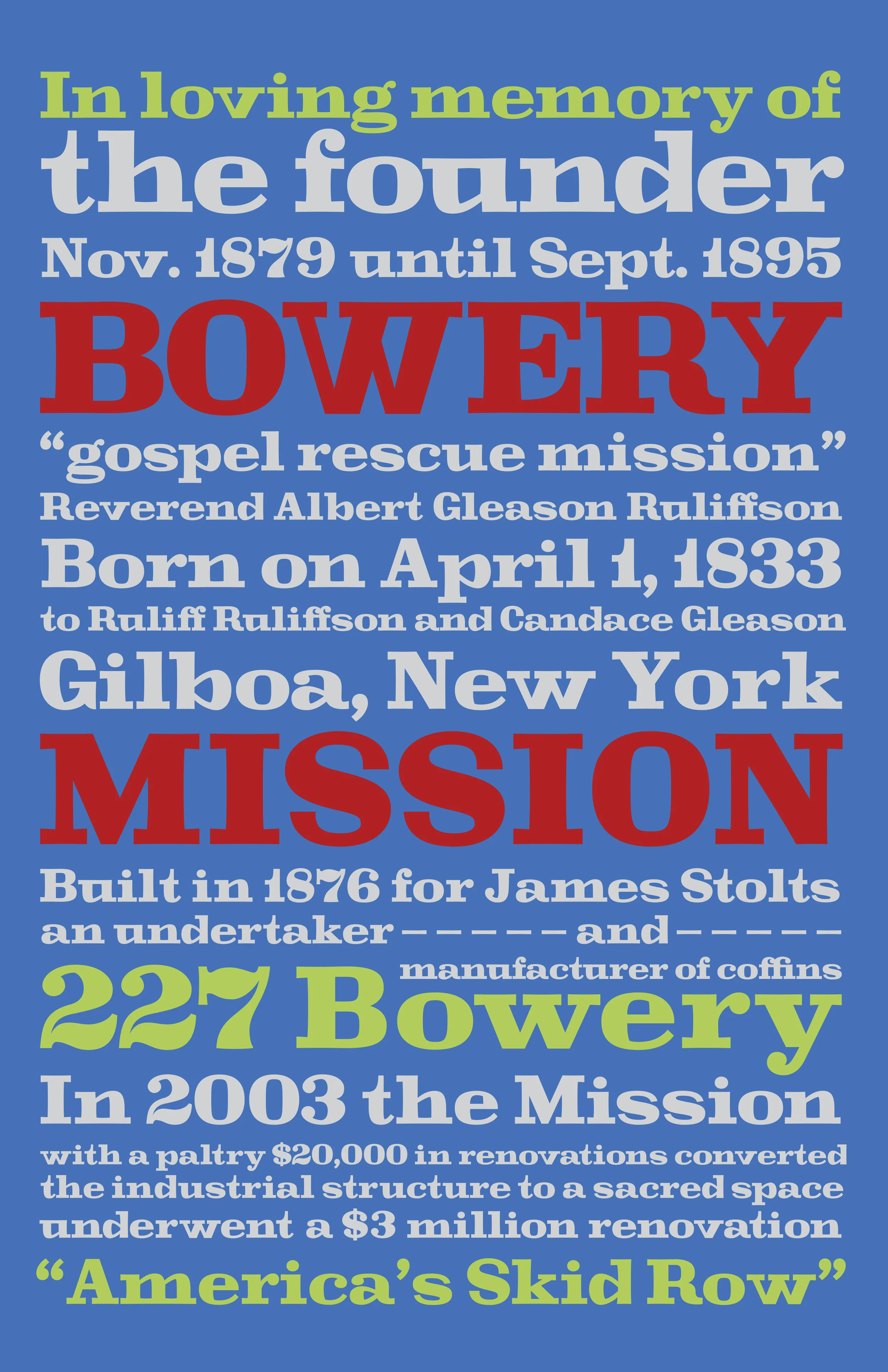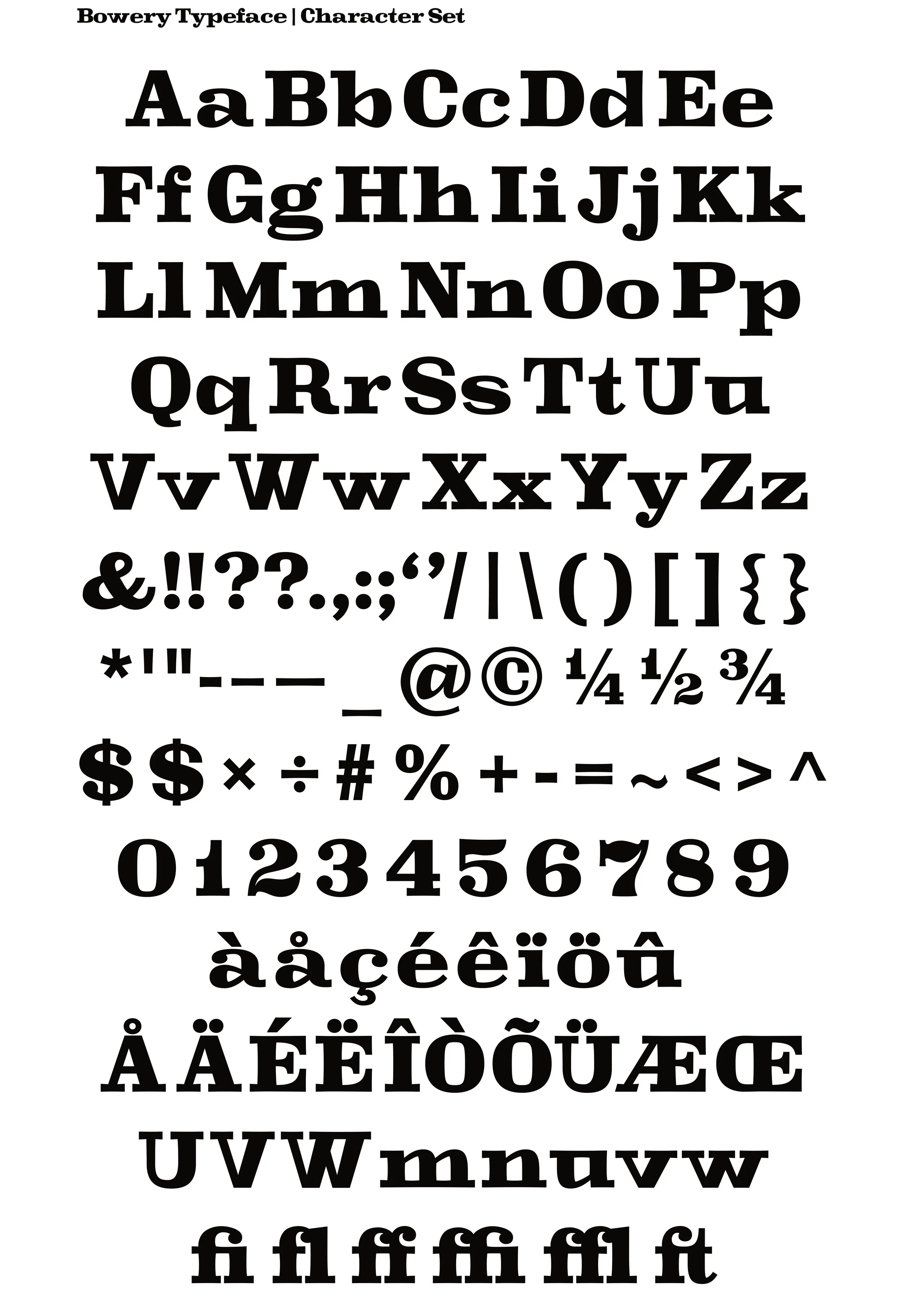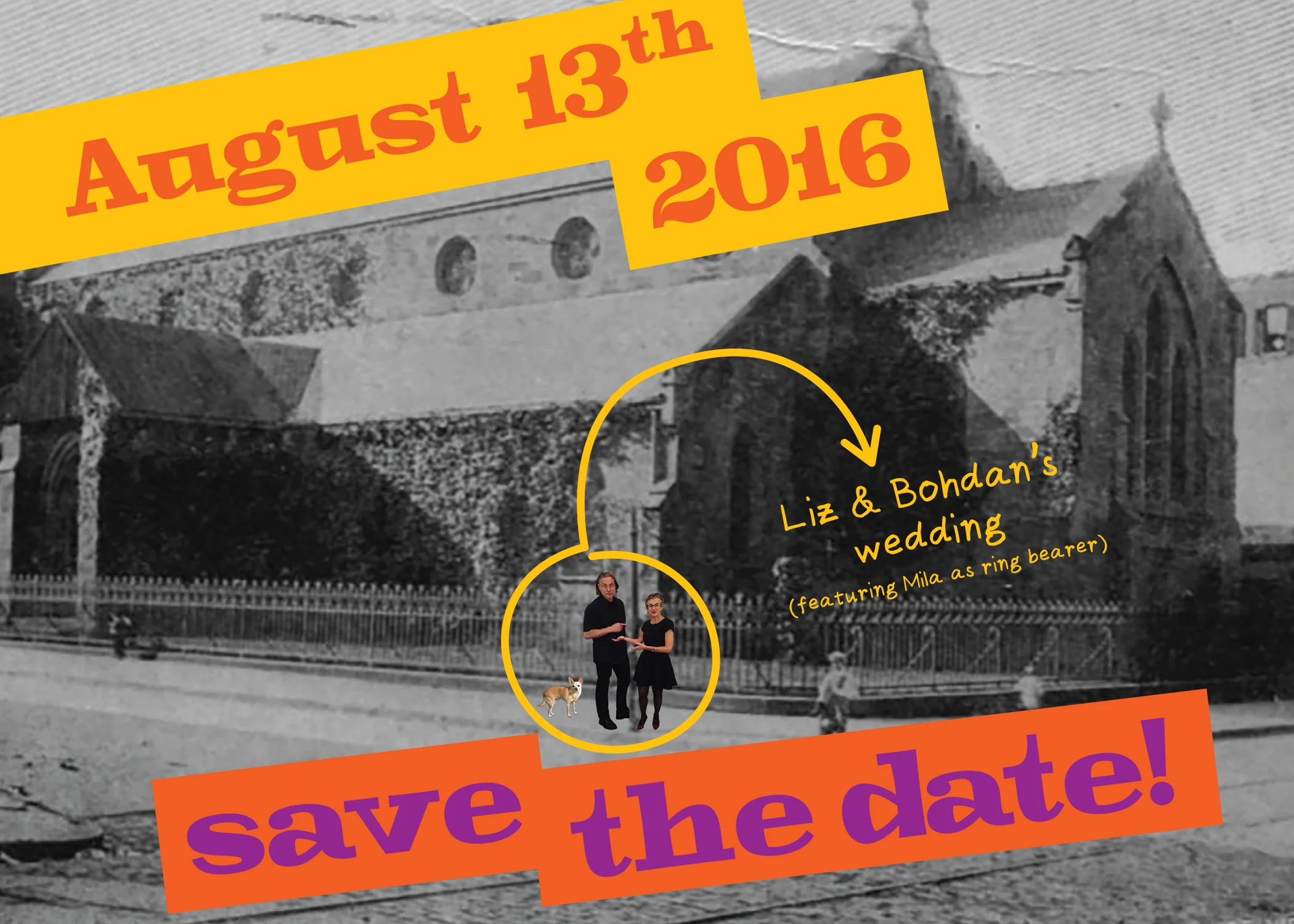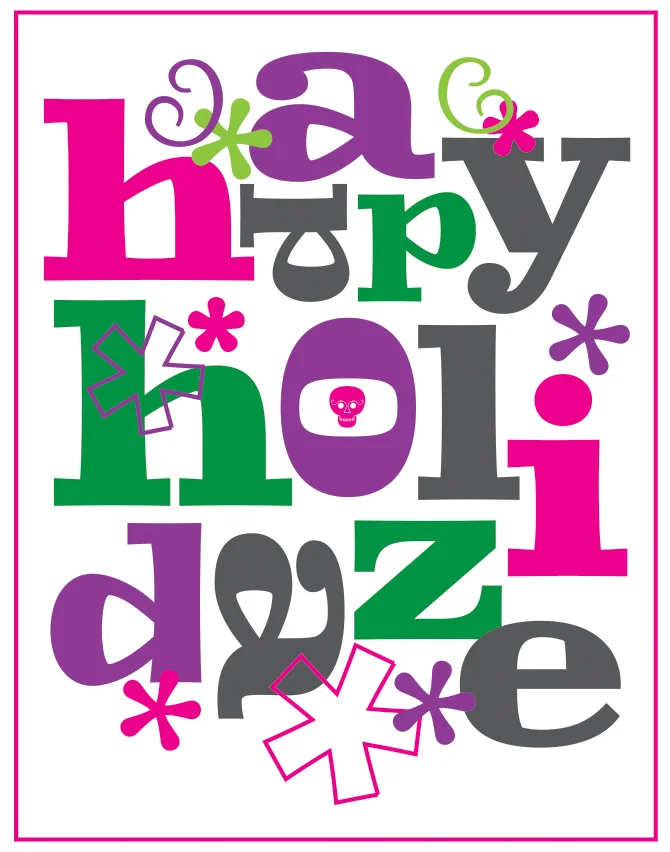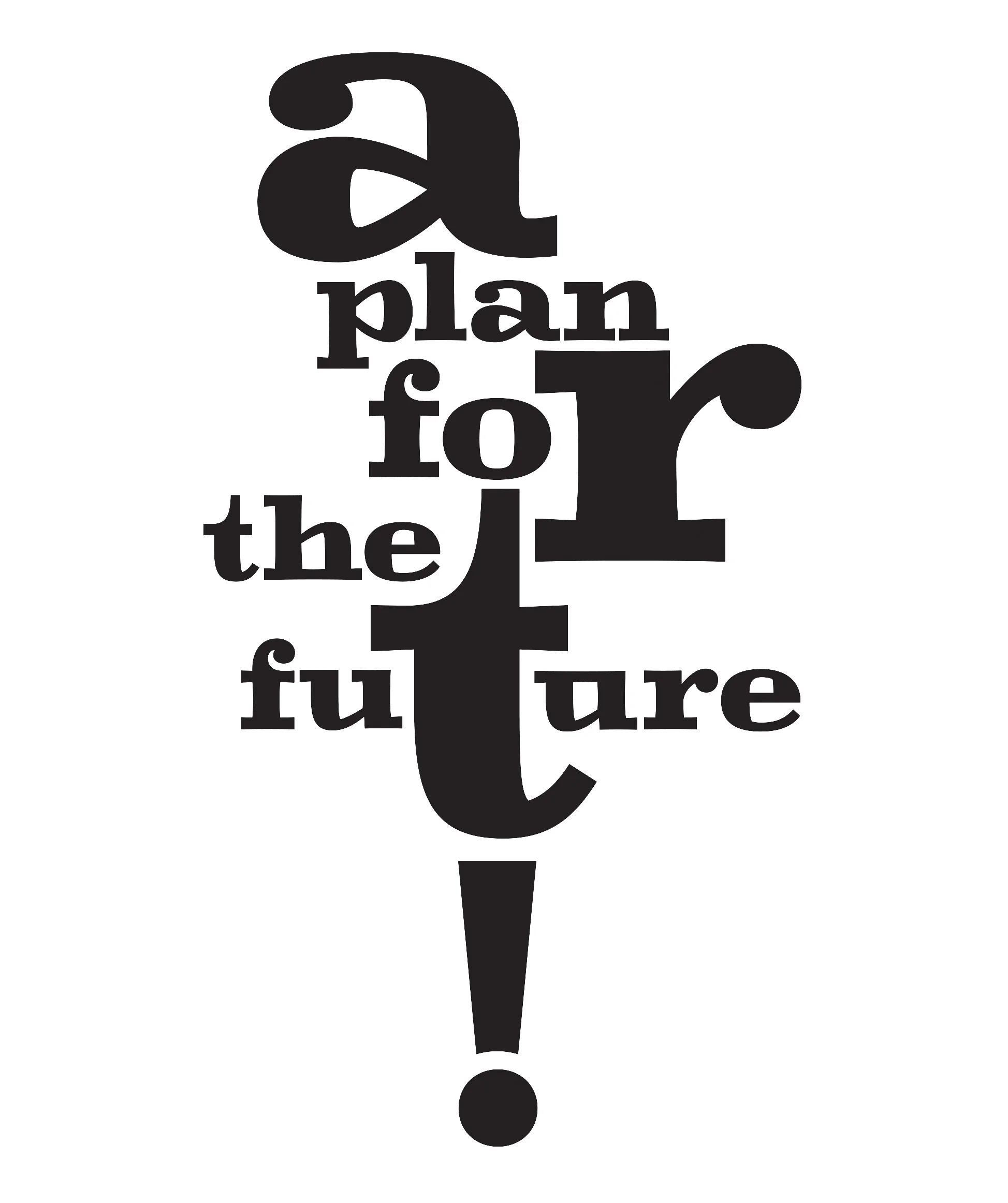
Bowery Typeface
Bowery //
a typeface based on letter forms carved into a stone plaque located in the Bowery Mission meeting room on the Lower East Side of Manhattan, dated ca. 1895. In creating the digital typeface design the intention was to retain the eclectic qualities and features of the carved letter forms while transforming them into a cohesive typeface. In order to address the idiosyncrasies inherent in the letter forms alternates were created for some of the glyphs.
Rubbings by Paul Shaw (https://www.paulshawletterdesign.com/) and photographs of the inspiration, posters, spec sheets and design examples.